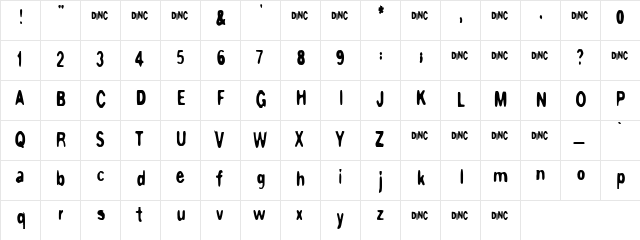
Shipwreck Regular
Design Context for Shipwreck Typeface
Shipwreck is a composed and adaptable typeface that performs quietly and consistently across a wide range of design contexts.